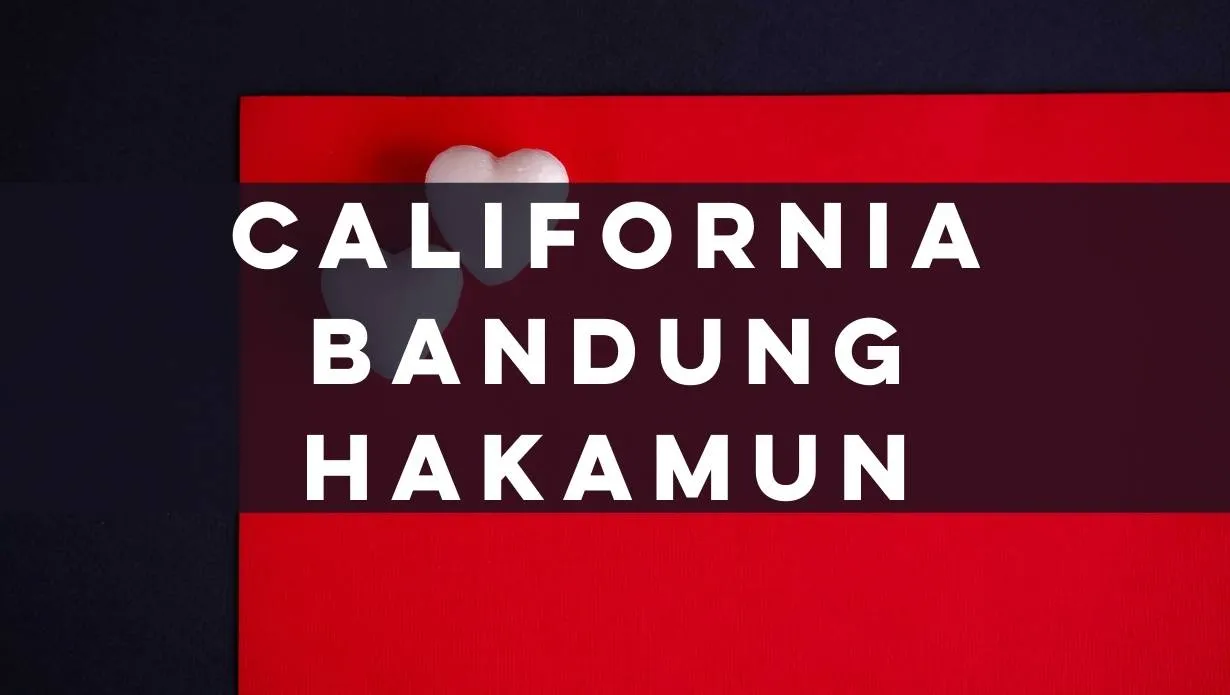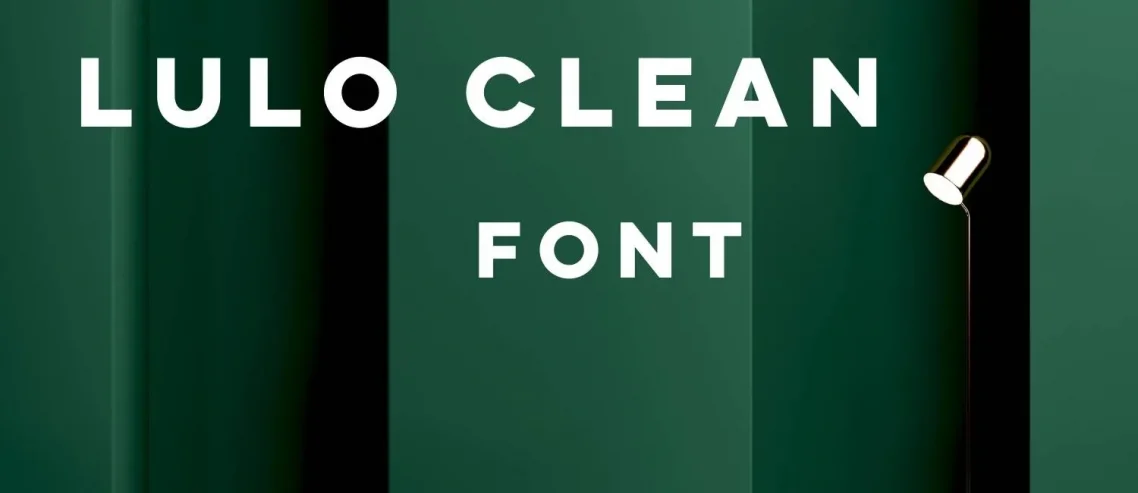
Lulo Clean Font has very unique and seductive curves, a fresh and modern look, from Brazilian designer Ryan Martinson. The font was designed with an eye for big sizes and helps direct the reader’s attention to the information you want them to get out of it even at very small sizes.
You can make a very elegant pair with copperplate gothic font. The Lulo font is right at home in both setting body text as well as headlines.
View of Lulo Clean Font
| Designer | Ryan Martinson |
| Style | sans-serif |